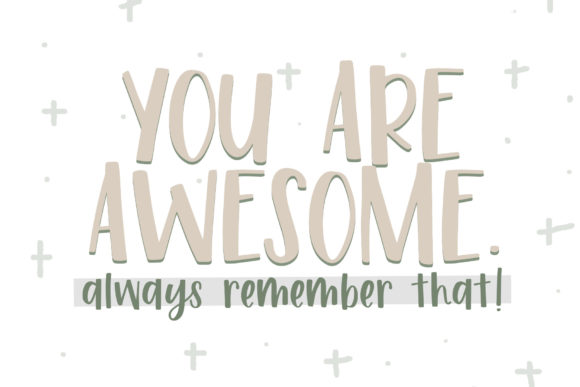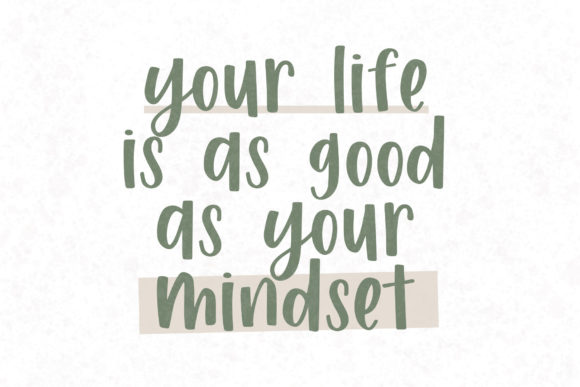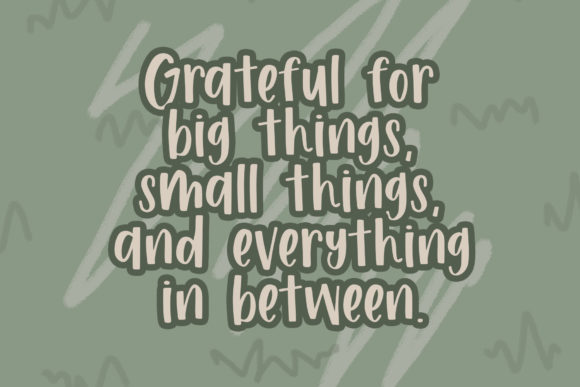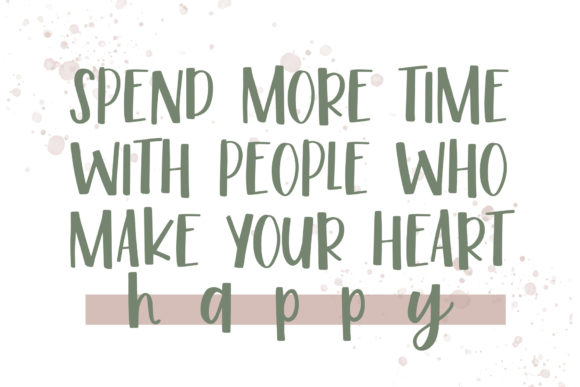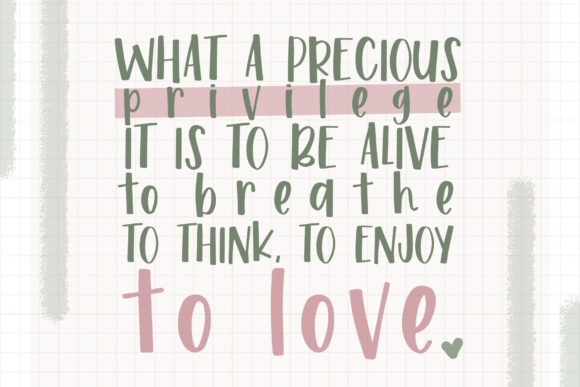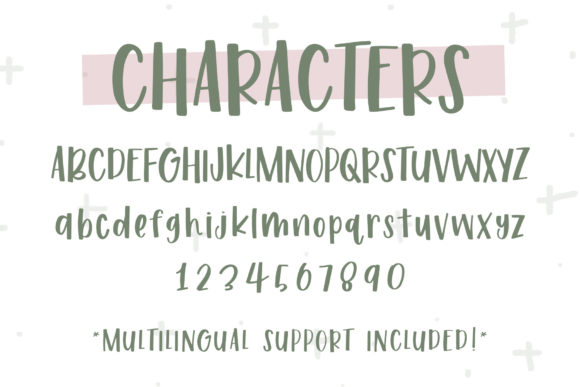
The Perfect Addition to Your Design: Daisy Font
Have you ever stared at a blank canvas, searching for the perfect combination of words and visuals to bring your creative vision to life? For many designers, this is a familiar moment of frustration and excitement. But what if you could find the perfect font to spark your creativity and elevate your design?
Enter Daisy Font, a charming and adaptable display font that’s designed to add a touch of whimsy and playfulness to your projects. With its relaxed and casual vibe, Daisy Font is perfect for a variety of designs, from social media graphics to product labels and beyond.
As a designer, you know that the right font can make all the difference in conveying your message and engaging your audience. That’s why Daisy Font is a valuable addition to any design toolkit – its versatility and charm make it a confident choice for designers who want to add a little extra something special to their projects.
Daisy Font Key Features
- Unique Characteristics: Daisy Font features a playful, handwritten style with a mix of rounded and pointed letterforms, making it ideal for creative and informal designs.
Daisy Font Review
Overall, I was excited to dive into the Daisy Font, but my experience was a mix of highs and lows. Let’s start with what works well:
- ✨ Unique aesthetic: The Daisy Font has a quirky charm to it, making it perfect for projects that need a touch of whimsy.
- ✨ Legibility: The font is surprisingly clear and easy to read, even at smaller sizes.
- ✨ Customization options: The font offers a range of weights and styles, giving users ample flexibility to tailor it to their needs.
However, I did encounter some limitations that made me question the font’s practicality:
- ⚠️ Limited language support: The font’s character set is not extensive, which may cause issues for projects requiring non-English characters.
- ⚠️ Compatibility issues: I encountered some compatibility problems with certain software and platforms, which may require extra work to resolve.
Overall, I’d say the Daisy Font is a great choice for projects where its unique aesthetic is a key consideration. However, its limitations may make it less suitable for more complex or large-scale projects. With some tweaking and fine-tuning, it has the potential to be a solid addition to any designer’s toolkit.
Tips for Getting the Most Out of Daisy Font
Use Daisy Font for designs that require a playful and whimsical touch. It pairs well with bright colors and illustrations. To get the most out of it, experiment with different font sizes and combinations to create a unique look.
Daisy Font is ideal for:
- Playful advertisements
- Whimsical wedding invitations
- Fun and creative social media graphics